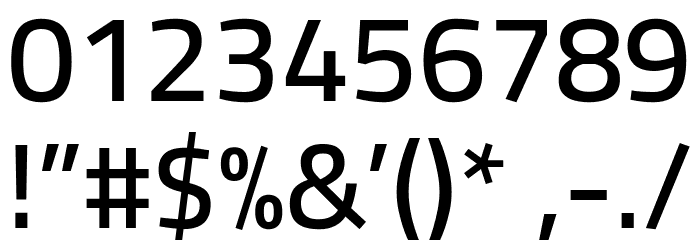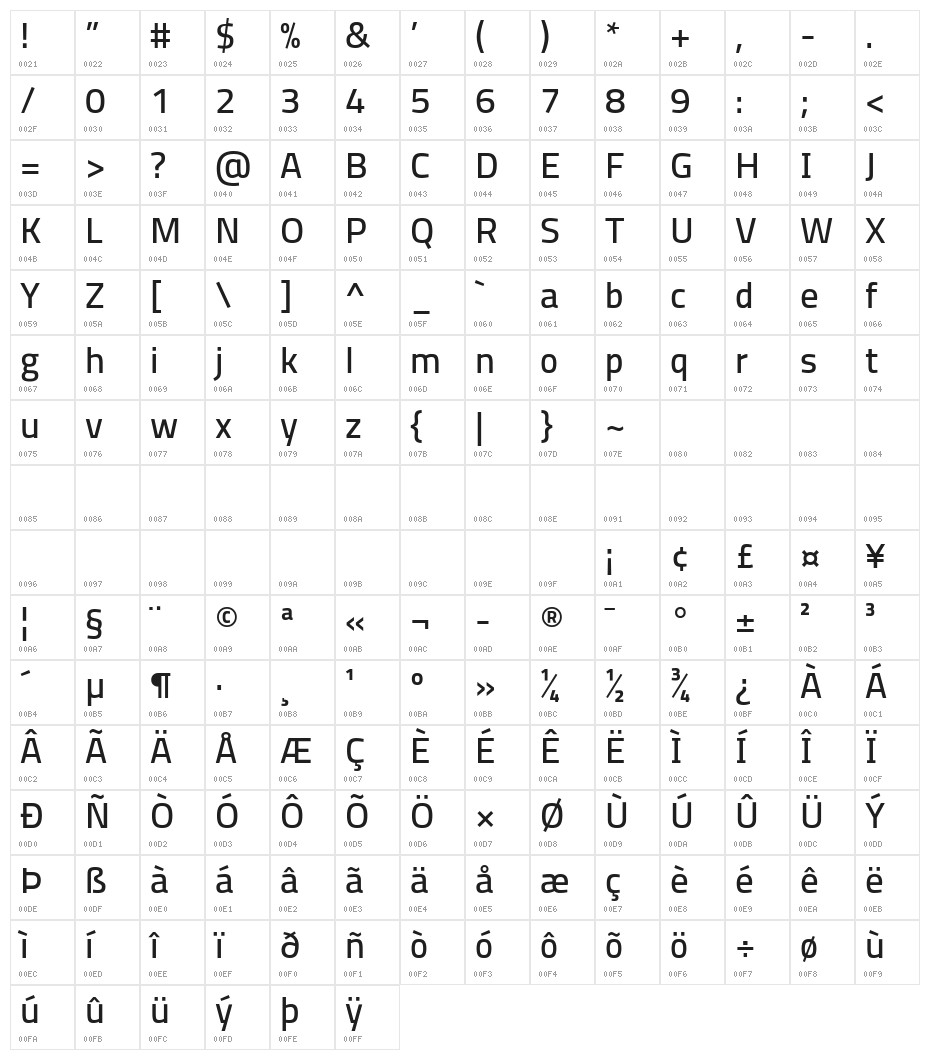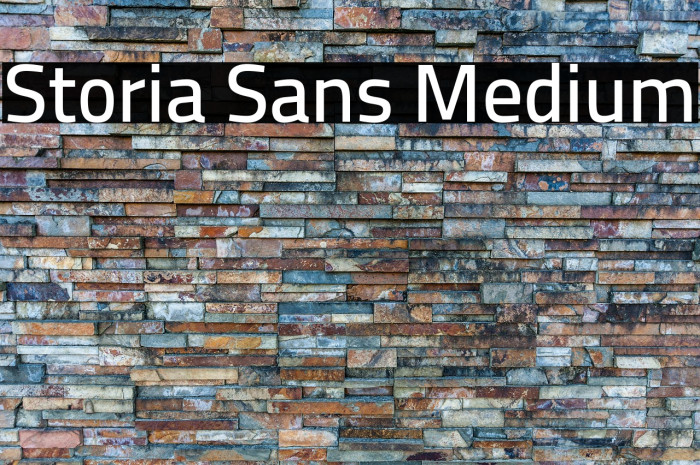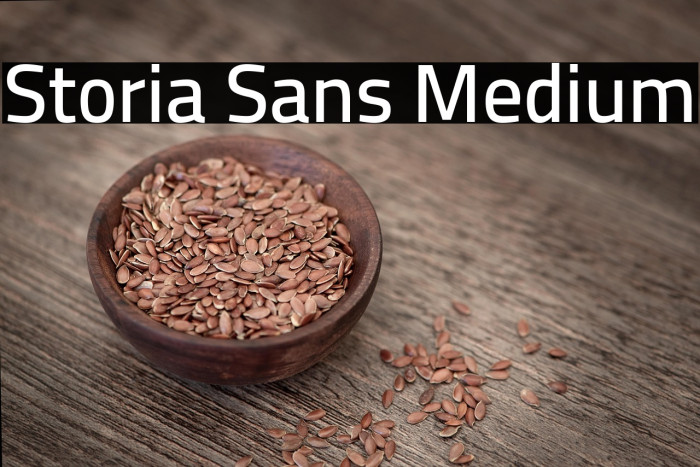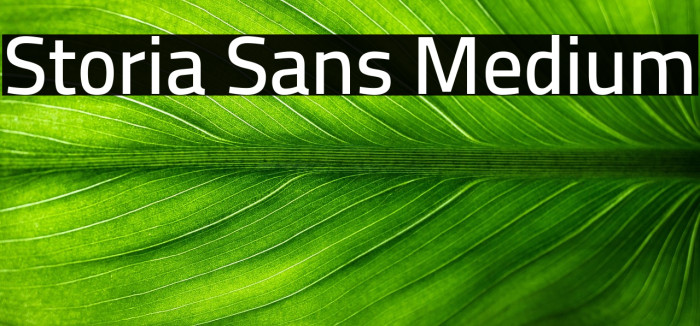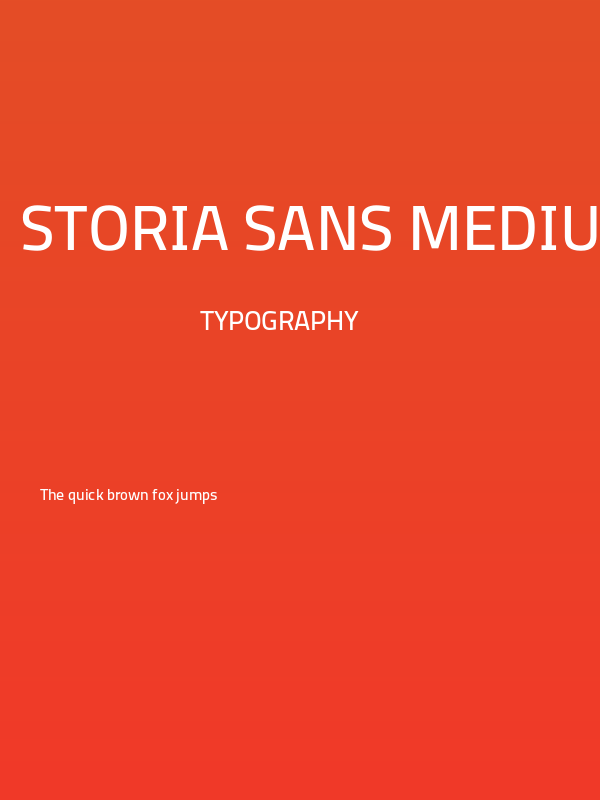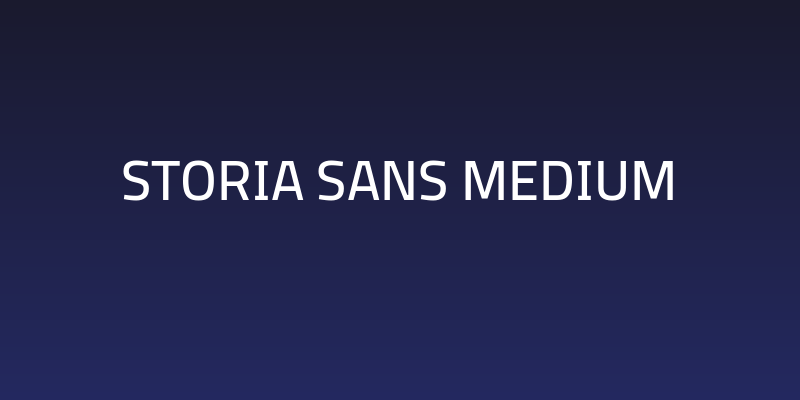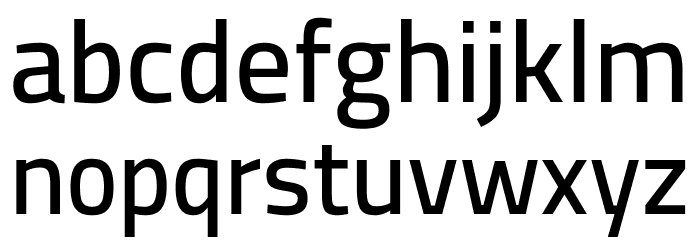
Storia Sans Medium Font
Storia Sans Medium Description
This font features a clean and modern sans-serif design, characterized by its geometric shapes and uniform stroke widths. The uppercase letters are bold and assertive, while the lowercase letters maintain a friendly and approachable appearance. The numerals are clear and easily distinguishable, making them suitable for a variety of applications. Special characters are well-defined, adding versatility to the font's use. Overall, the font's simplicity and clarity make it highly readable, suitable for both digital and print media.